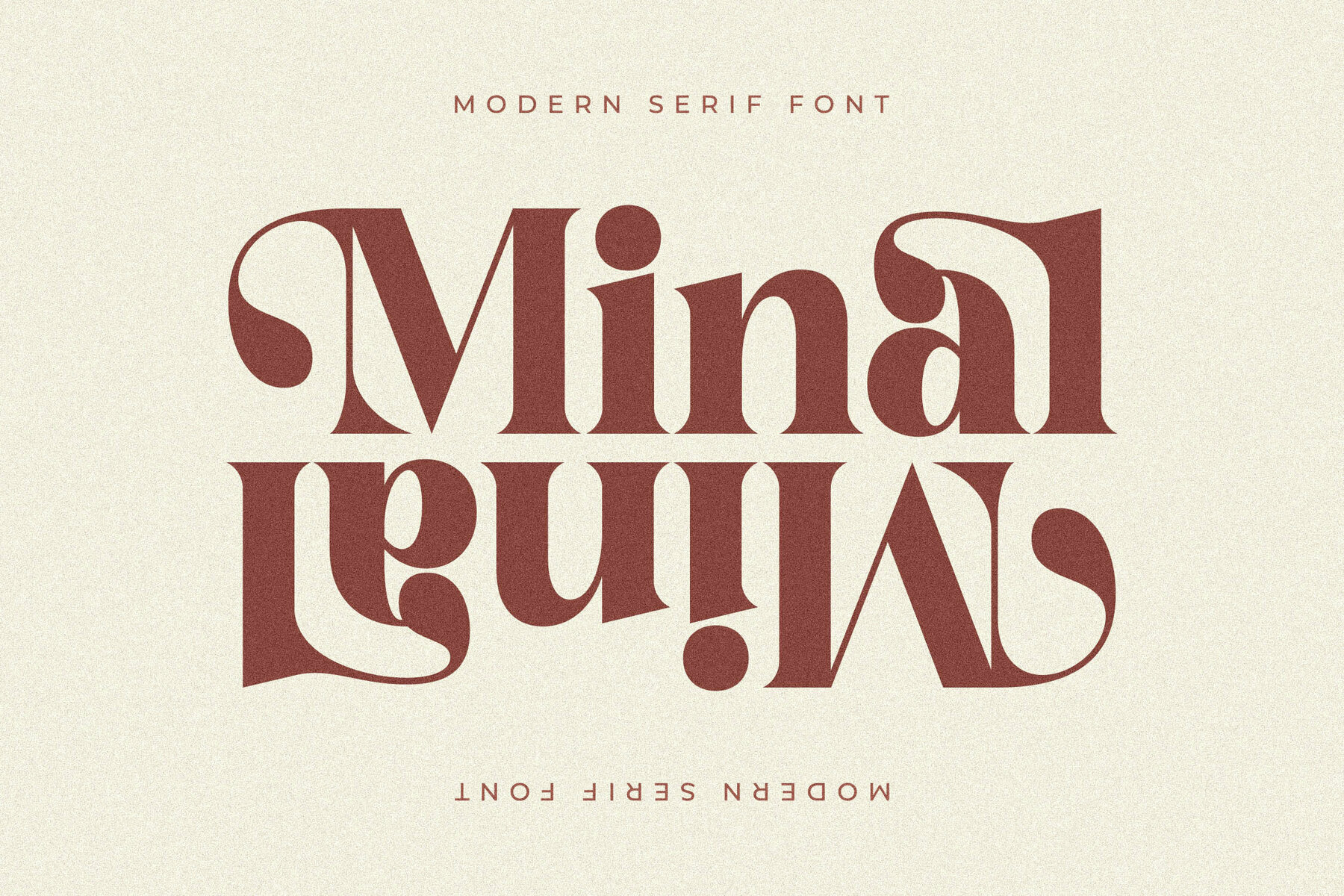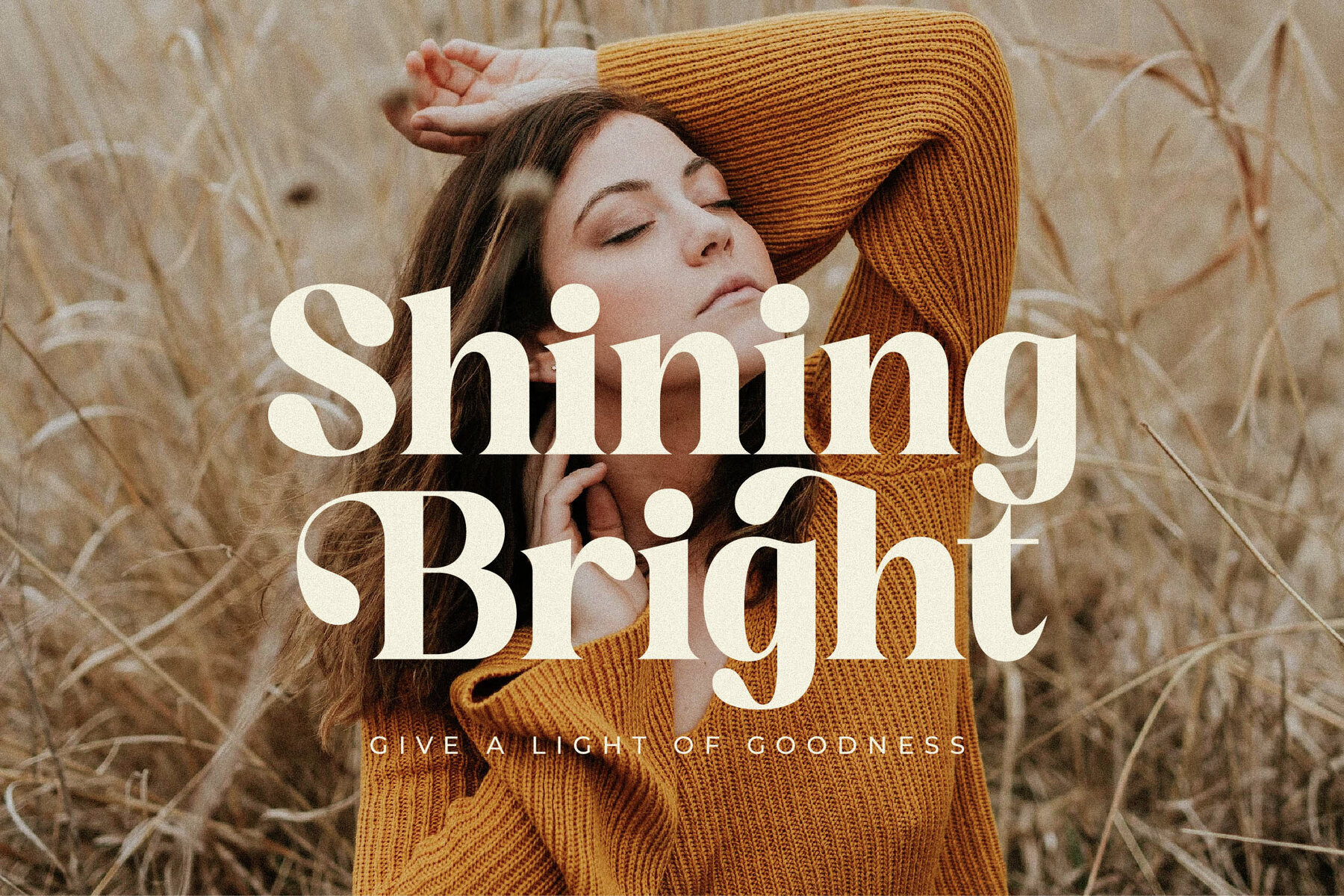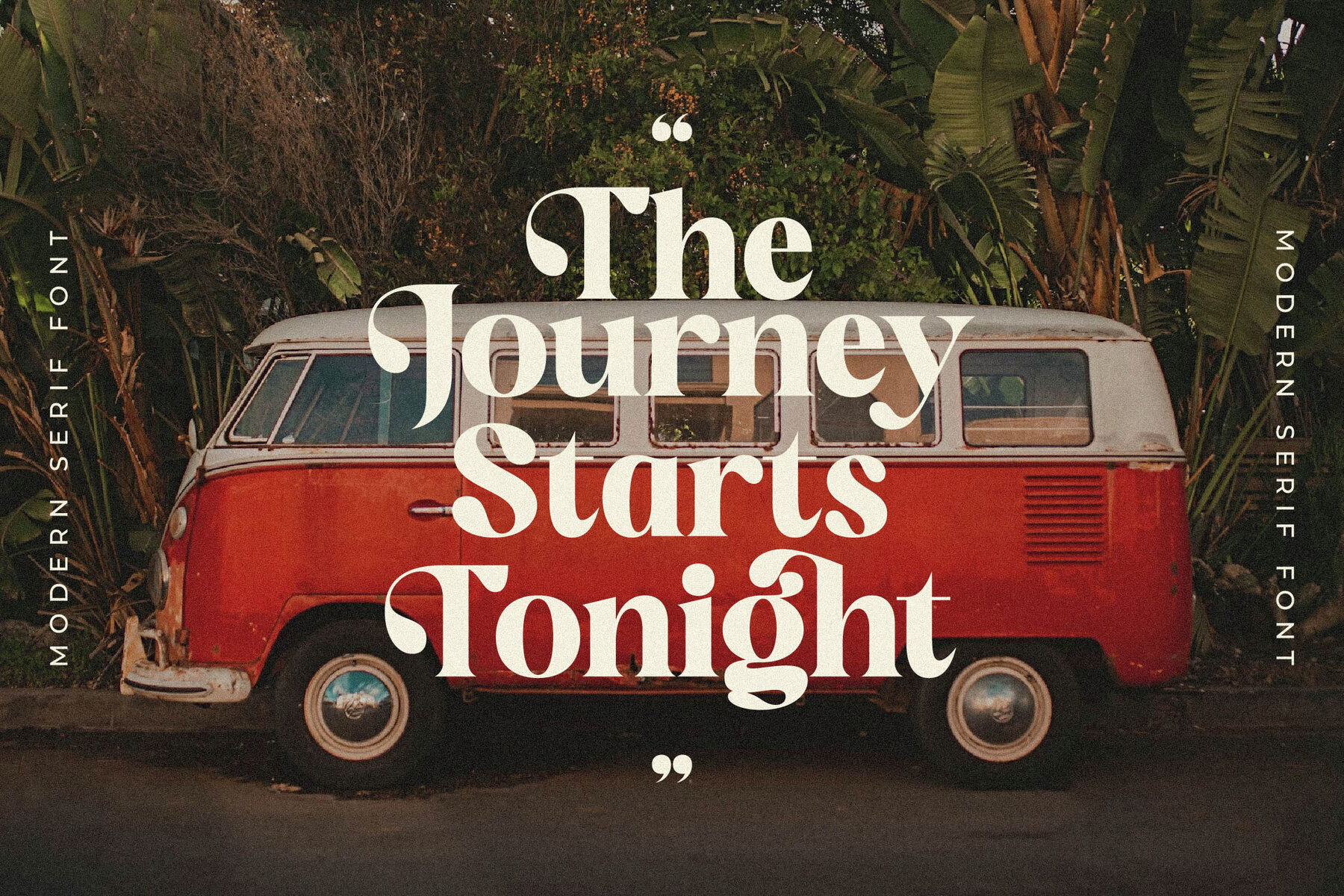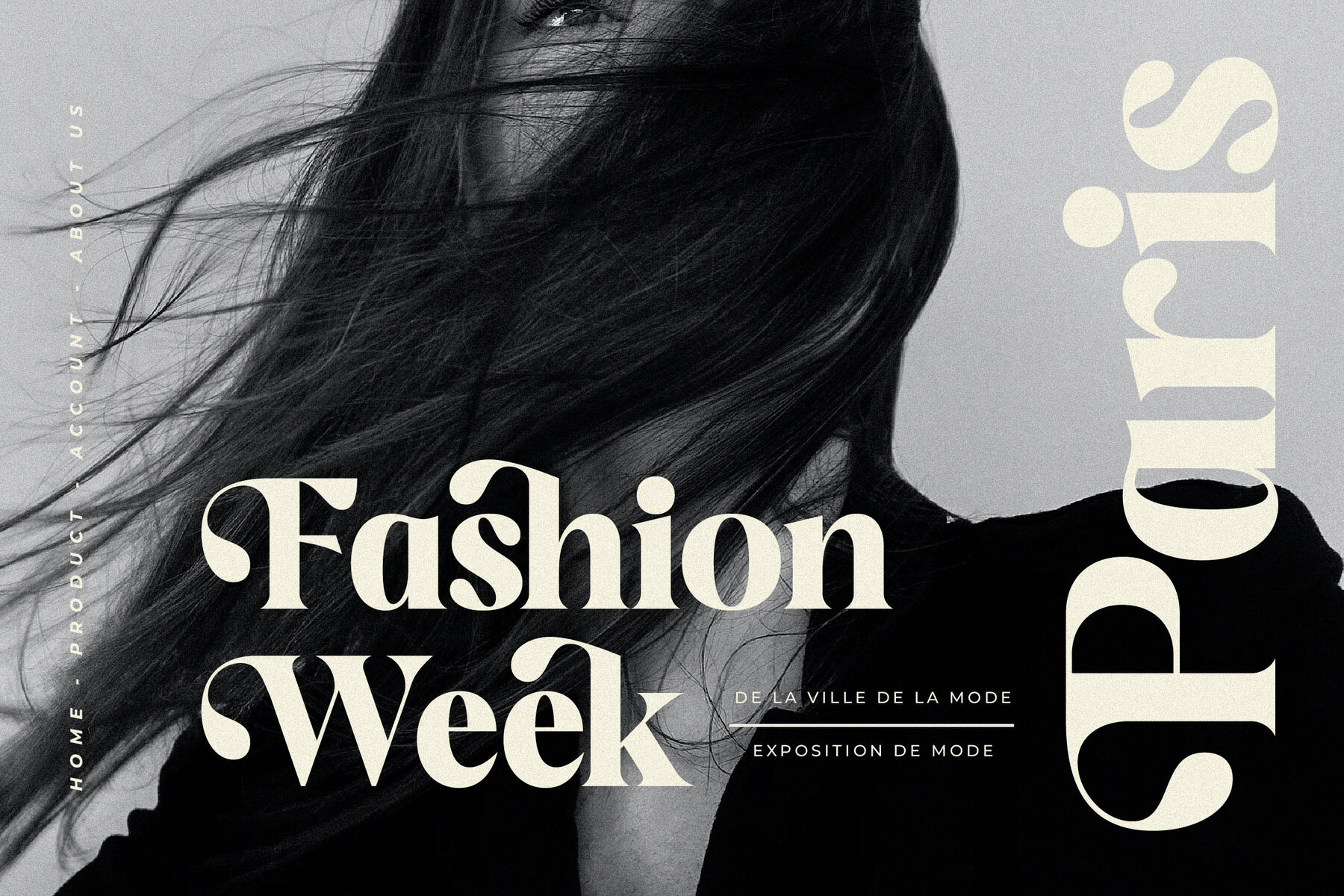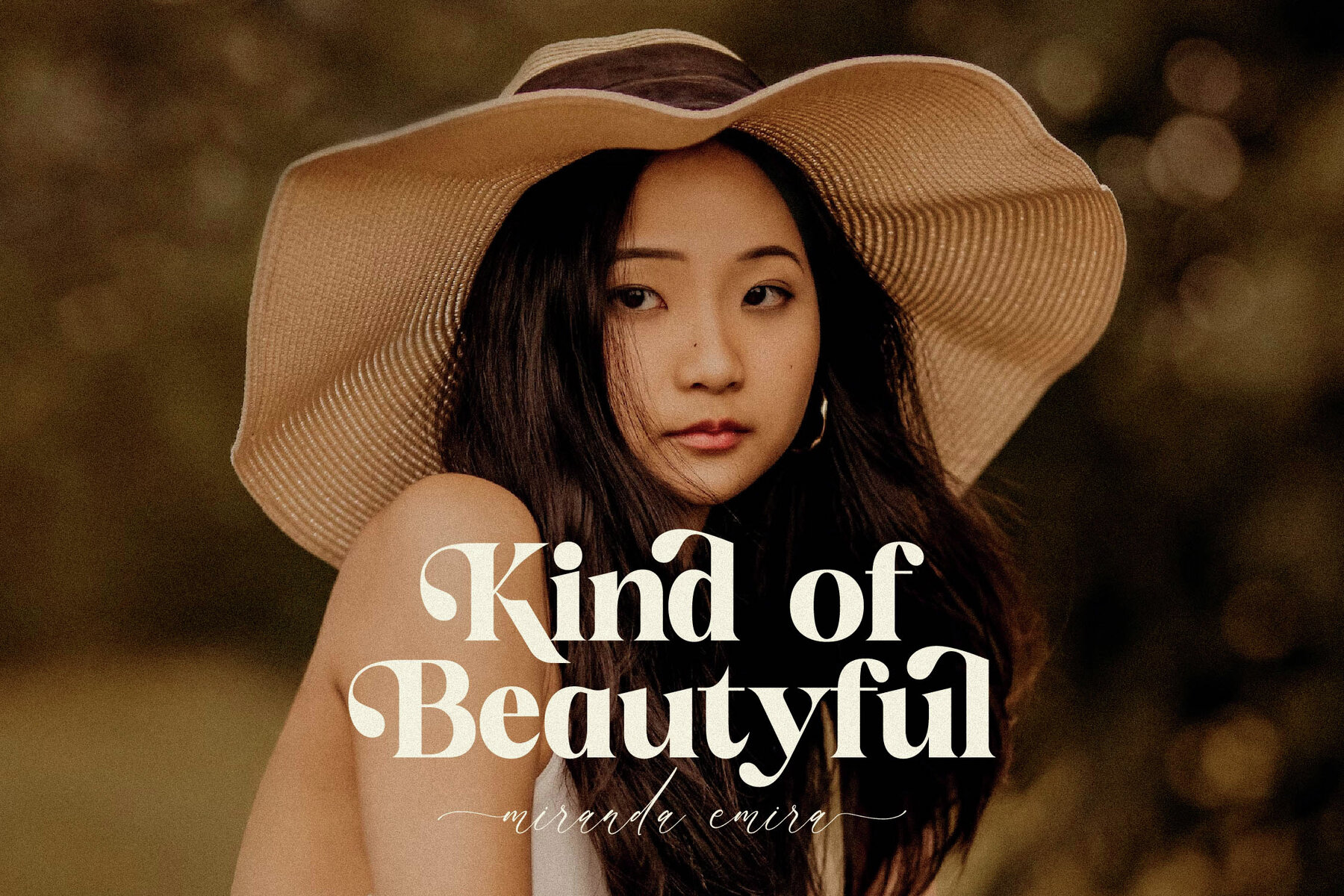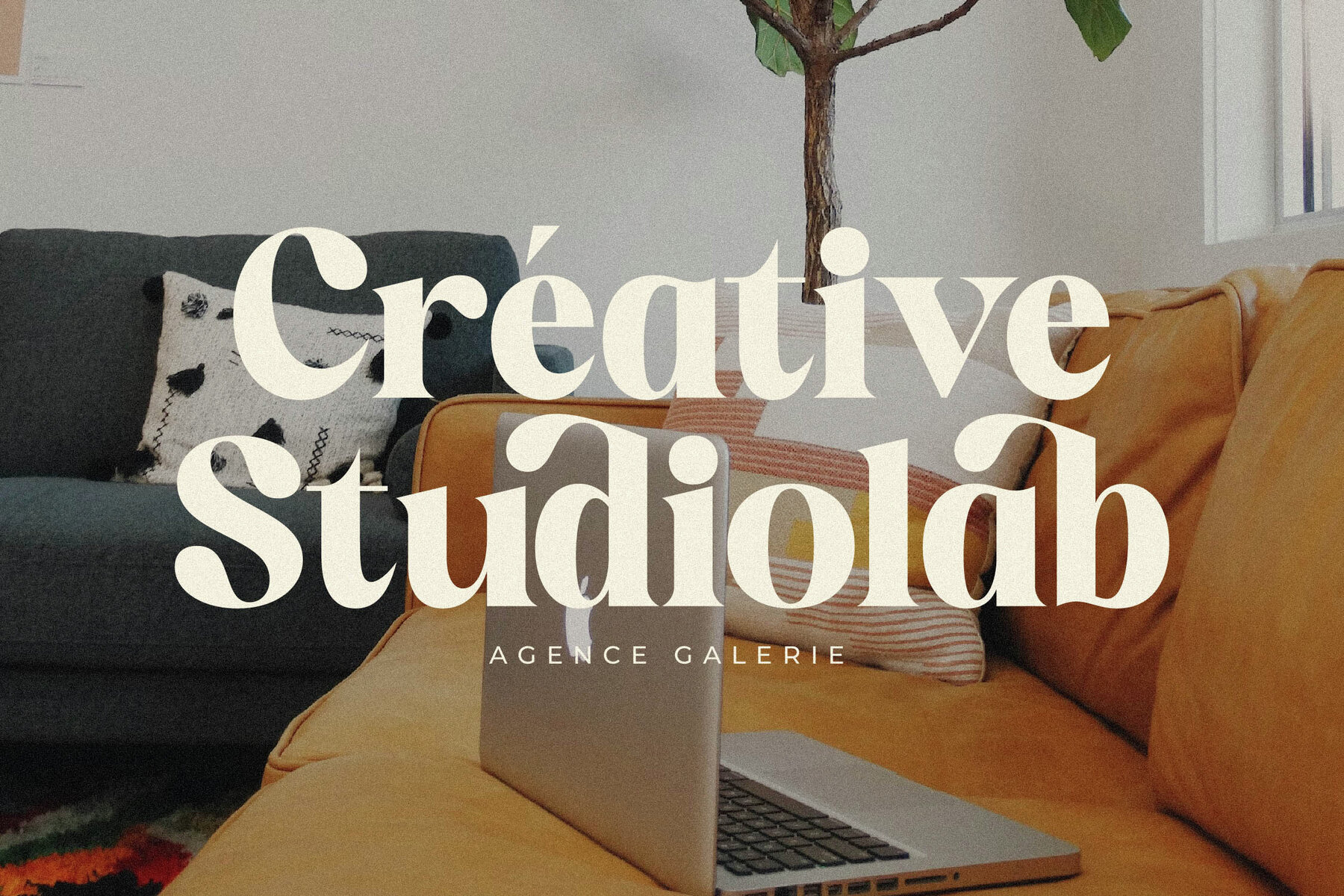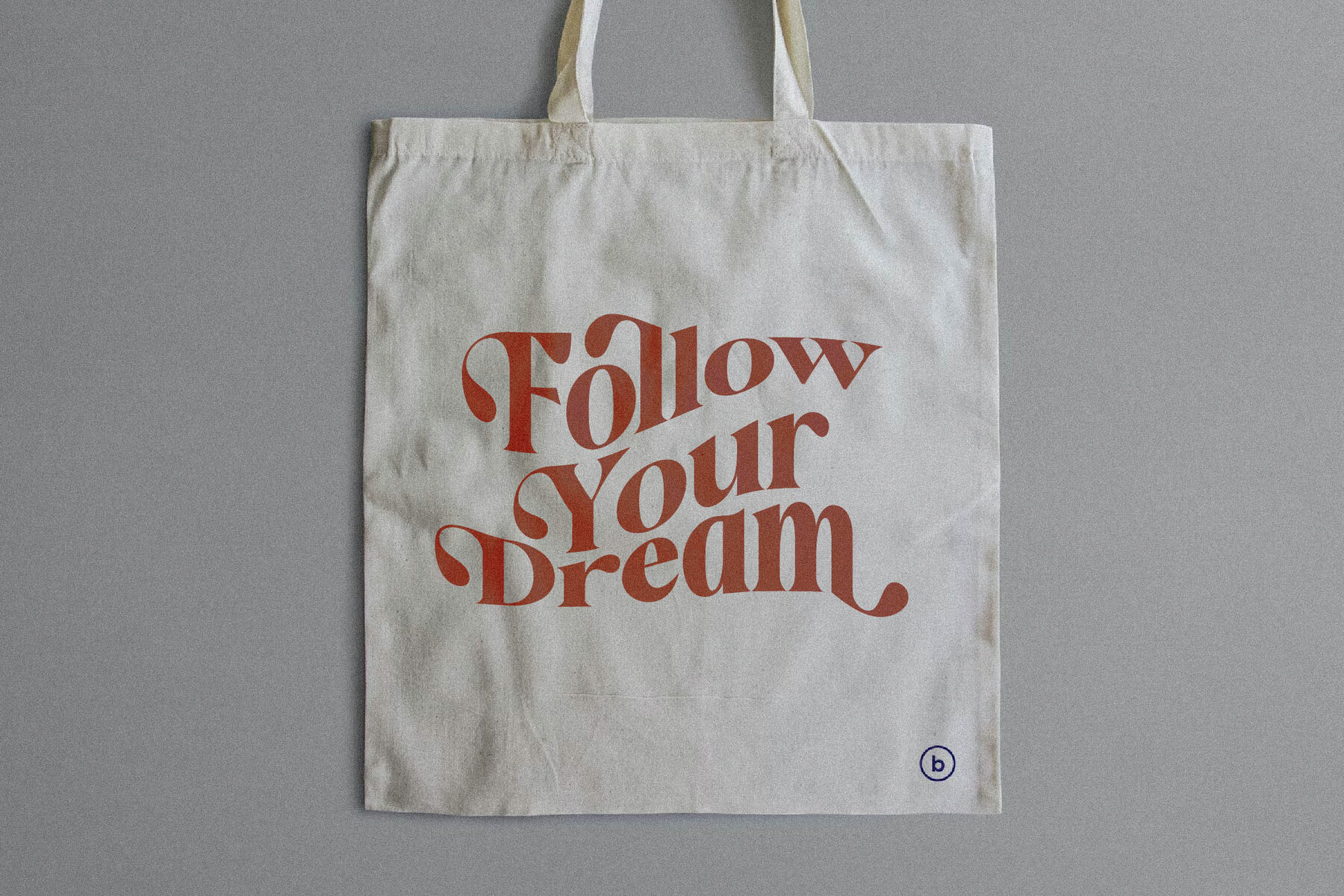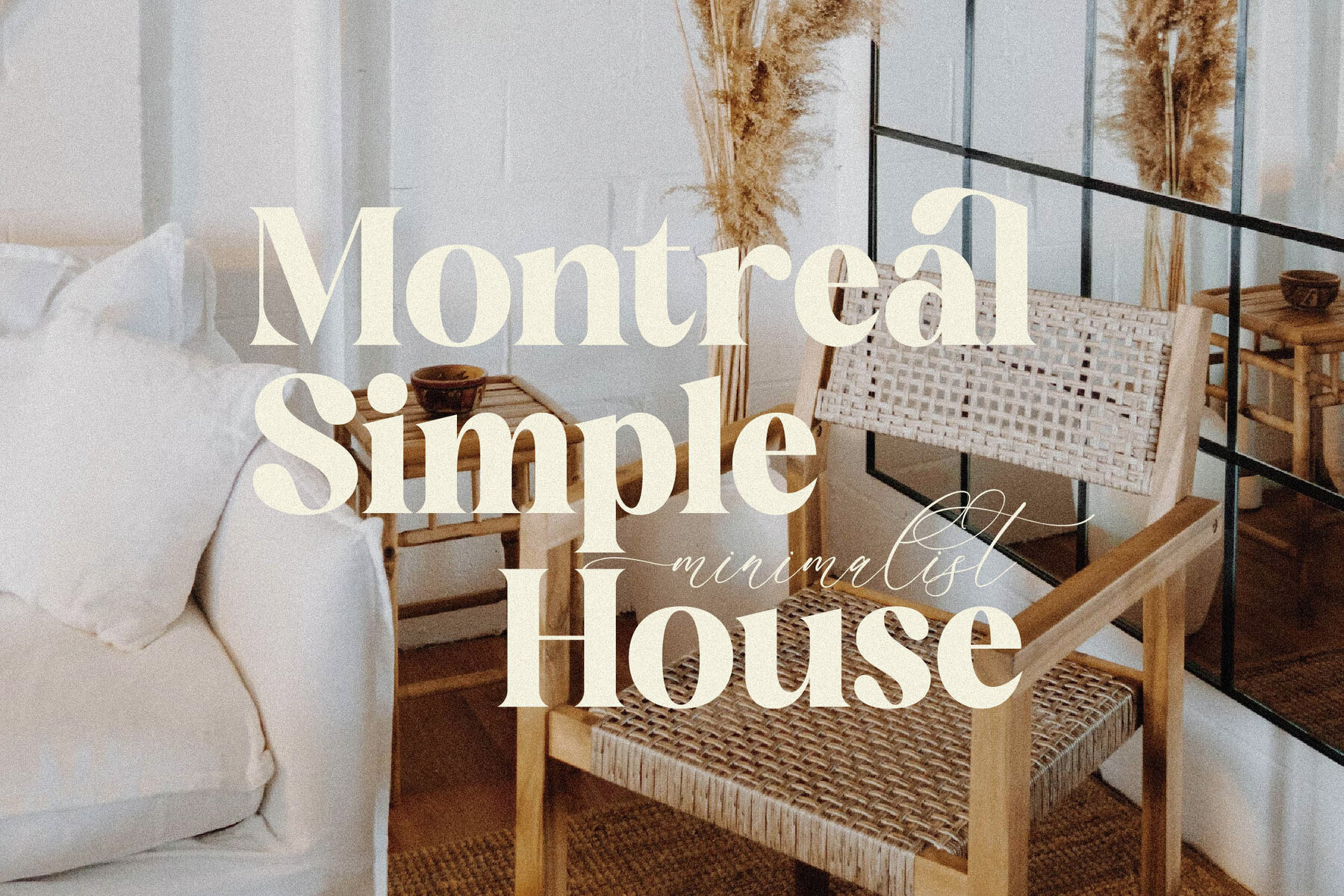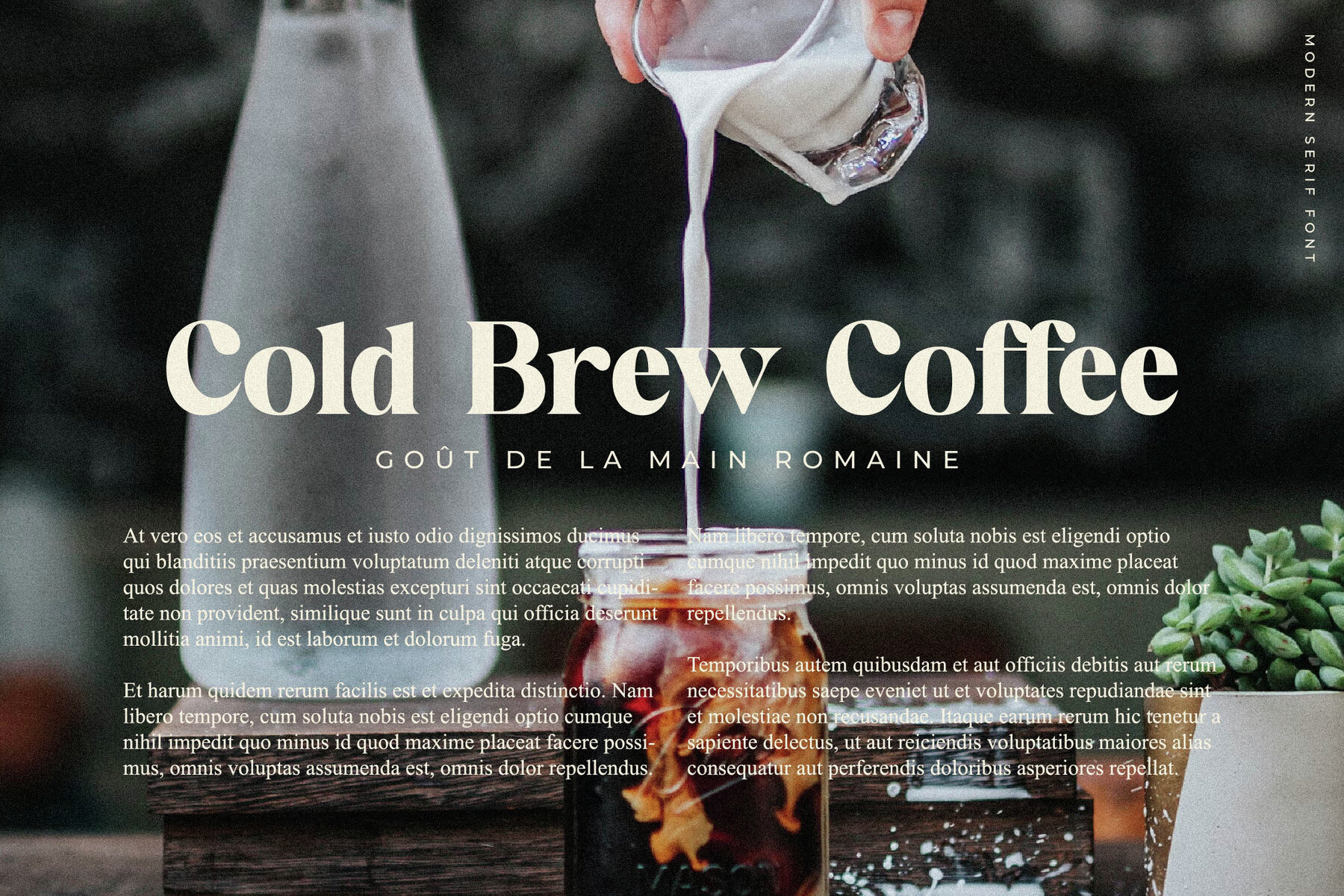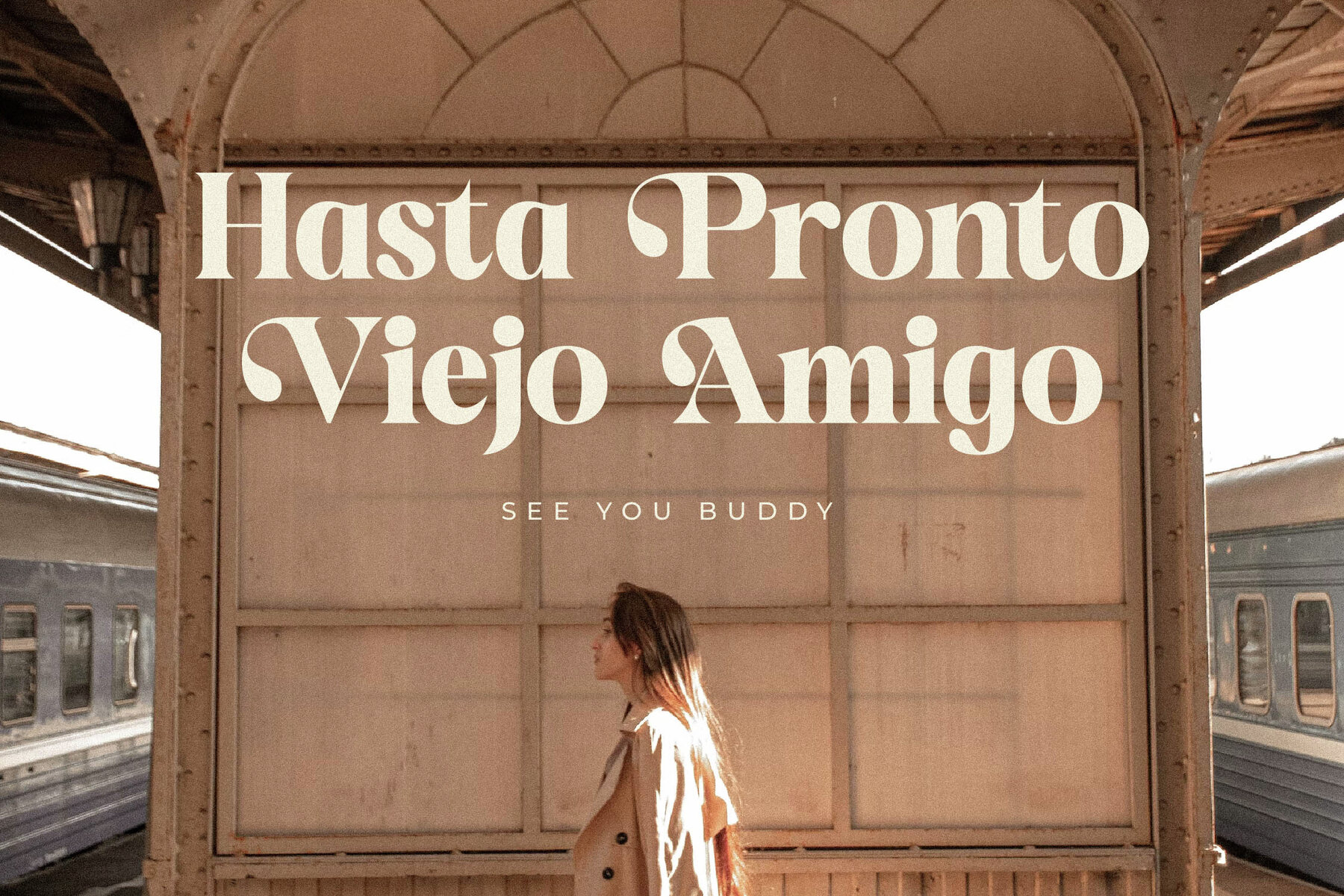
Minal Font
Discover Minal, an exquisite serif typeface blending modern aesthetics with classic elegance. Perfect for adding a touch of sophistication to luxury logos, book or movie titles, fashion branding, and magazines, Minal effortlessly enhances any creative project. Its unique style makes it versatile for clothes, lettering, quotes, and more.Minal Typeface: Modern Elegance